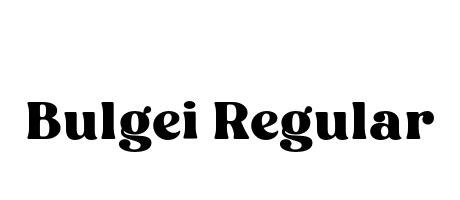
Bulgei Regular
By Brandsemut
Bulgei Regular: A playful, rounded font brimming with cheerful energy. Its slightly bulging letters create a friendly, approachable feel, perfect for headlines, logos, or anything needing a touch of whimsical charm. Its gentle curves invite a smile, making it ideal for conveying warmth and approachability.